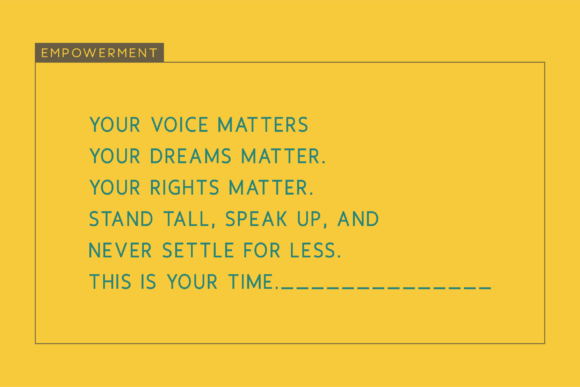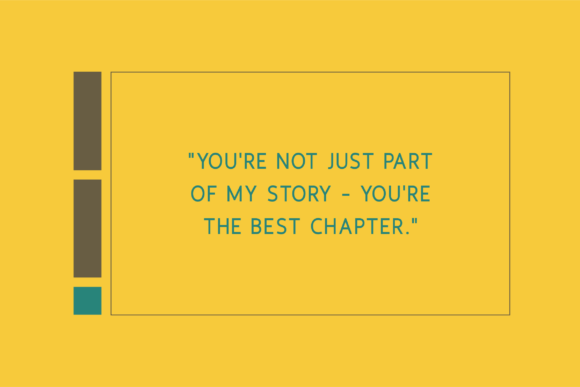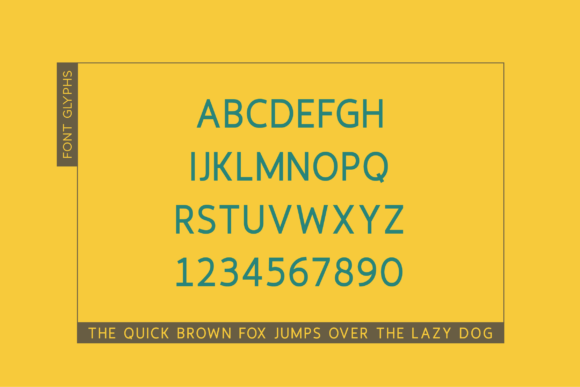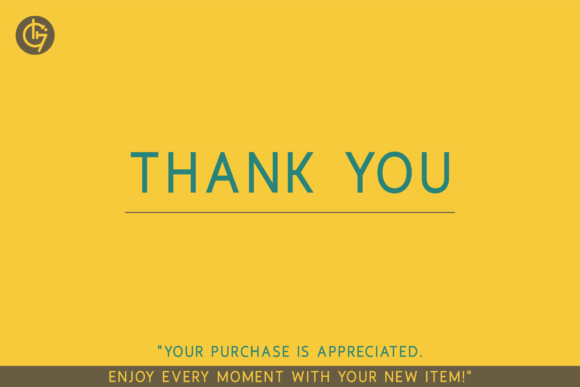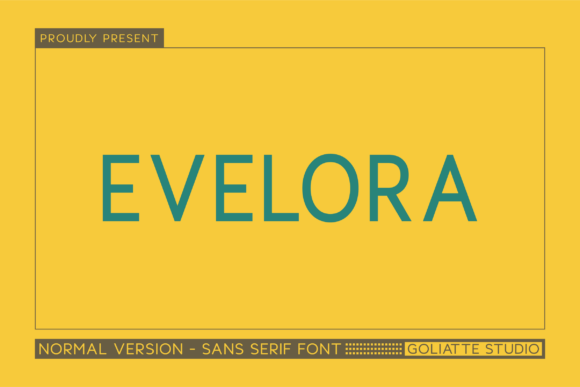
Introducing Evelora – A Modern Sans Serif Typeface
In the world of typography, a good font can make all the difference in the success of a design project. For designers and crafters looking for a bold and modern sans serif typeface, Evelora is an excellent choice. This all-caps font is designed to exude strength and authority, making it perfect for projects that require a sense of professionalism and impact.
Clean Lines and Minimalist Aesthetic
Evelora’s clean lines and minimalist aesthetic make it a versatile font that can be used in a variety of design projects. Its sharp, crisp edges give it a confident and professional look, making it ideal for designing logos, websites, and print materials. The font’s strong, geometric structure ensures that it can be used in both digital interfaces and high-end branding, making it a great addition to any designer’s toolkit.
Key Features of Evelora
- All-caps design for maximum impact and emphasis on clarity and readability
- Modern, minimalist style with a focus on readability and clean lines
- Bold, clean lines for a confident and professional look
- Ideal for branding, logos, packaging, and digital design
- Perfect for both large-scale headlines and smaller text blocks
Who Benefits from Evelora?
Evelora is perfect for designers, crafters, and businesses looking for a modern and professional font to elevate their design projects. Whether you’re a freelance designer, a branding expert, or a business owner looking to create a strong visual identity, Evelora is an excellent choice. Its versatility and impact make it suitable for a wide range of projects, from:
- Branding and logos: Create a strong and memorable brand identity with Evelora’s bold and modern design.
- Web design: Use Evelora to create stunning website headers, titles, and text blocks that grab attention.
- Print materials: Elevate your print materials, such as brochures, posters, and business cards, with Evelora’s clean and professional design.
- Packaging design: Make a statement with Evelora’s bold and eye-catching design on product packaging.
Why Choose Evelora?
With so many fonts available, why choose Evelora? Here are a few reasons why Evelora stands out:
- Uniqueness: Evelora’s modern and minimalist design sets it apart from other sans serif fonts.
- Versatility: Evelora’s clean lines and geometric structure make it suitable for a wide range of design projects.
- Readability: Evelora’s all-caps design and bold lines ensure that your message is clear and easy to read.
- Professionalism: Evelora’s confident and professional look makes it perfect for businesses and designers looking to create a strong visual identity.
In conclusion, Evelora is a modern sans serif typeface that is perfect for designers and crafters looking for a bold and professional font. Its clean lines, minimalist aesthetic, and all-caps design make it ideal for a wide range of design projects, from branding and logos to web design and print materials. With its versatility, readability, and professionalism, Evelora is an excellent choice for anyone looking to elevate their design projects and create a strong visual identity.